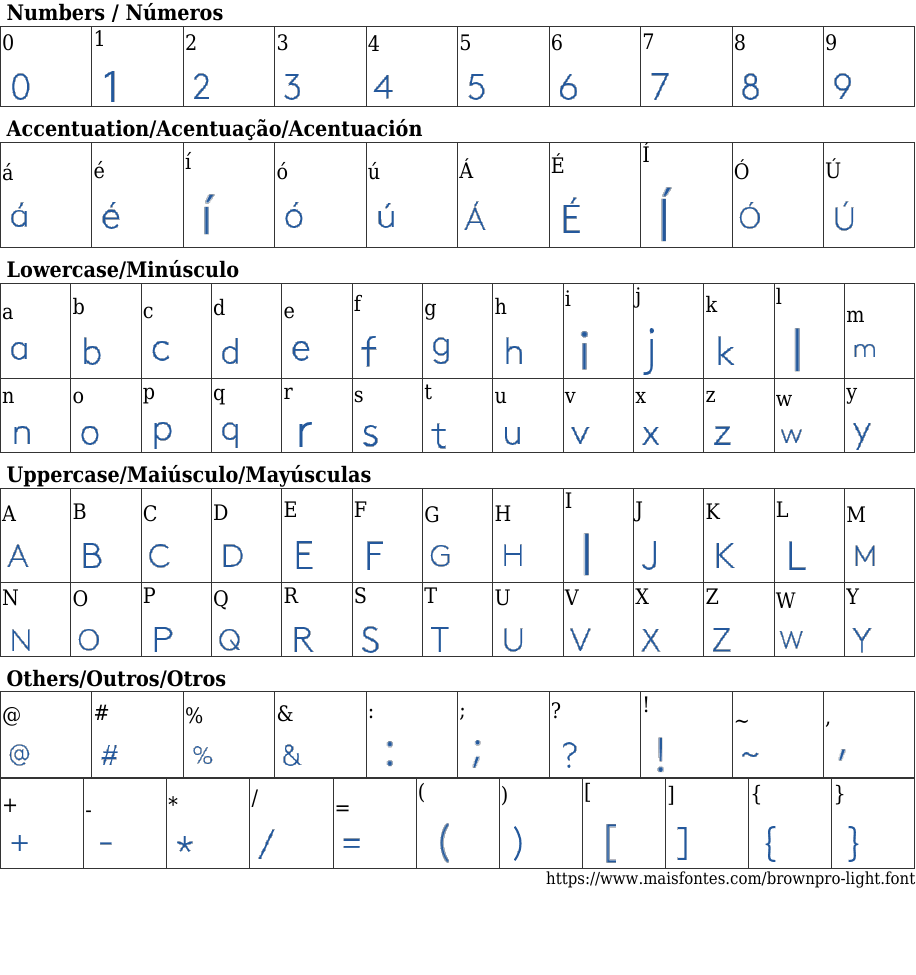
Brown Pro Font - A sans serif typeface with 19 styles, available from adobe fonts for sync and web use.
A sans serif typeface with 19 styles, available from adobe fonts for sync and web use.